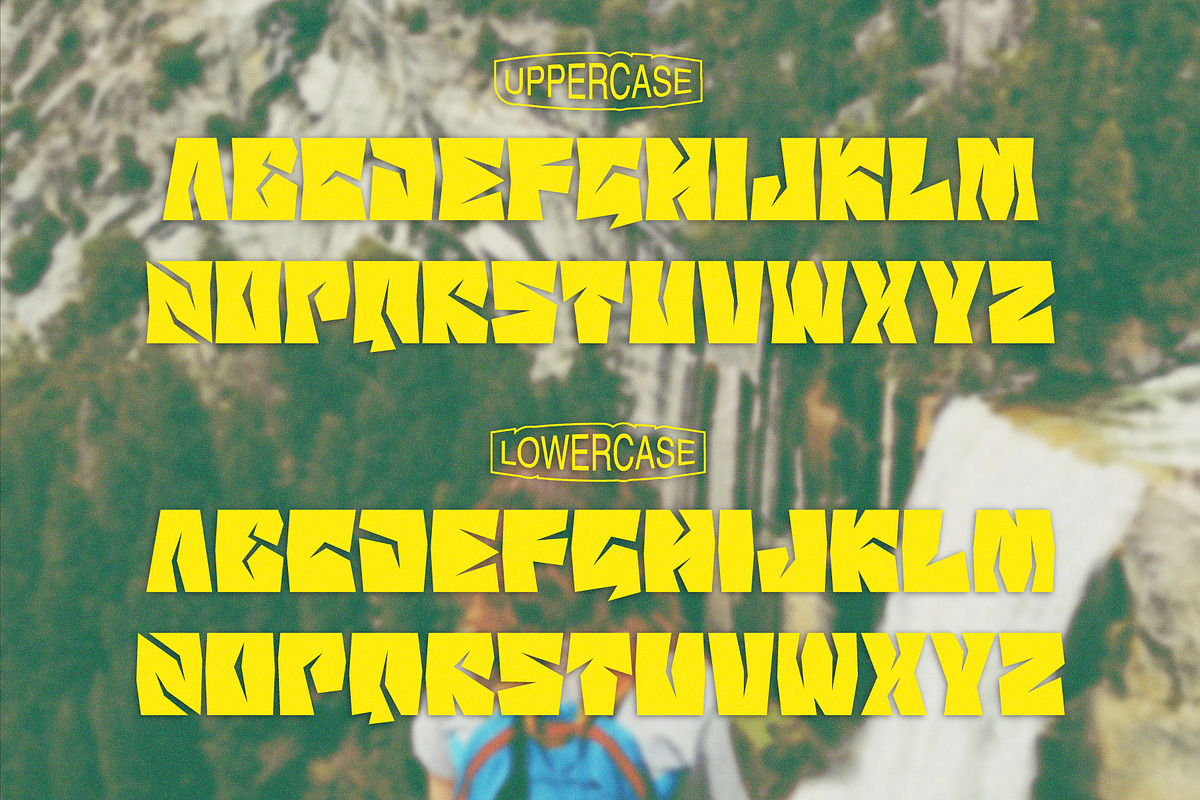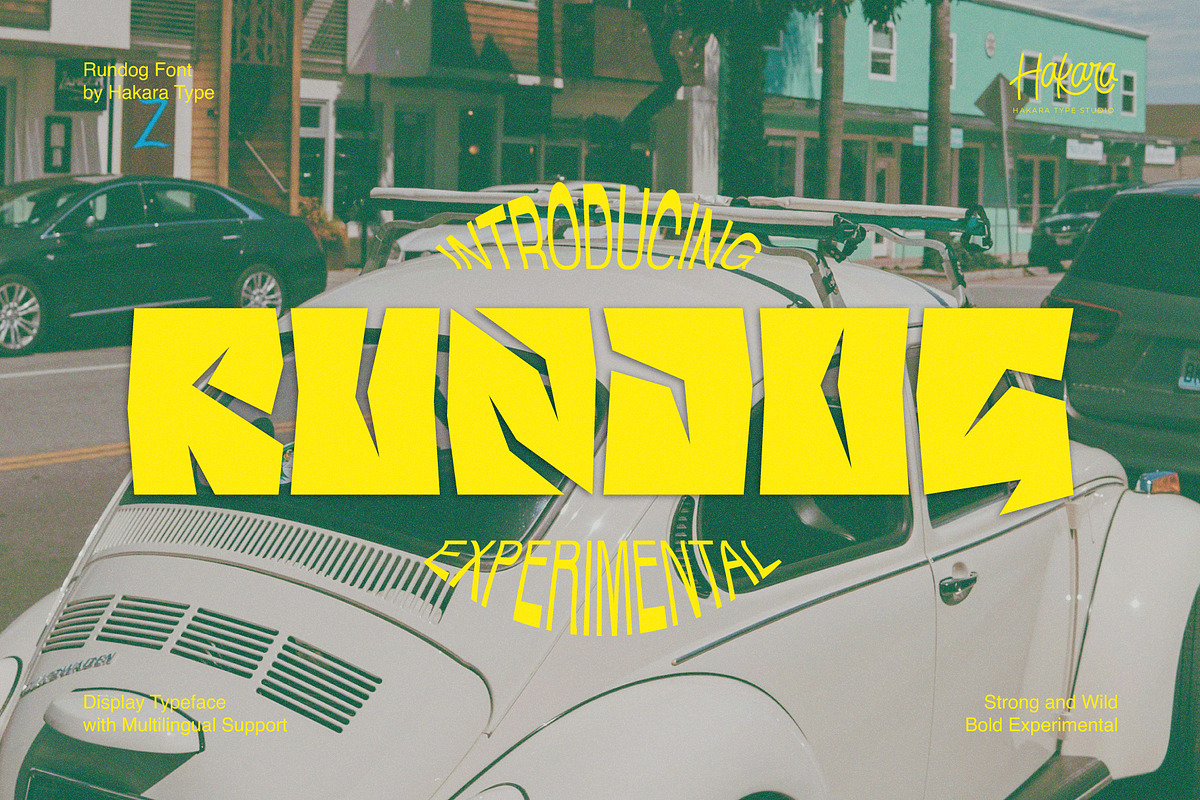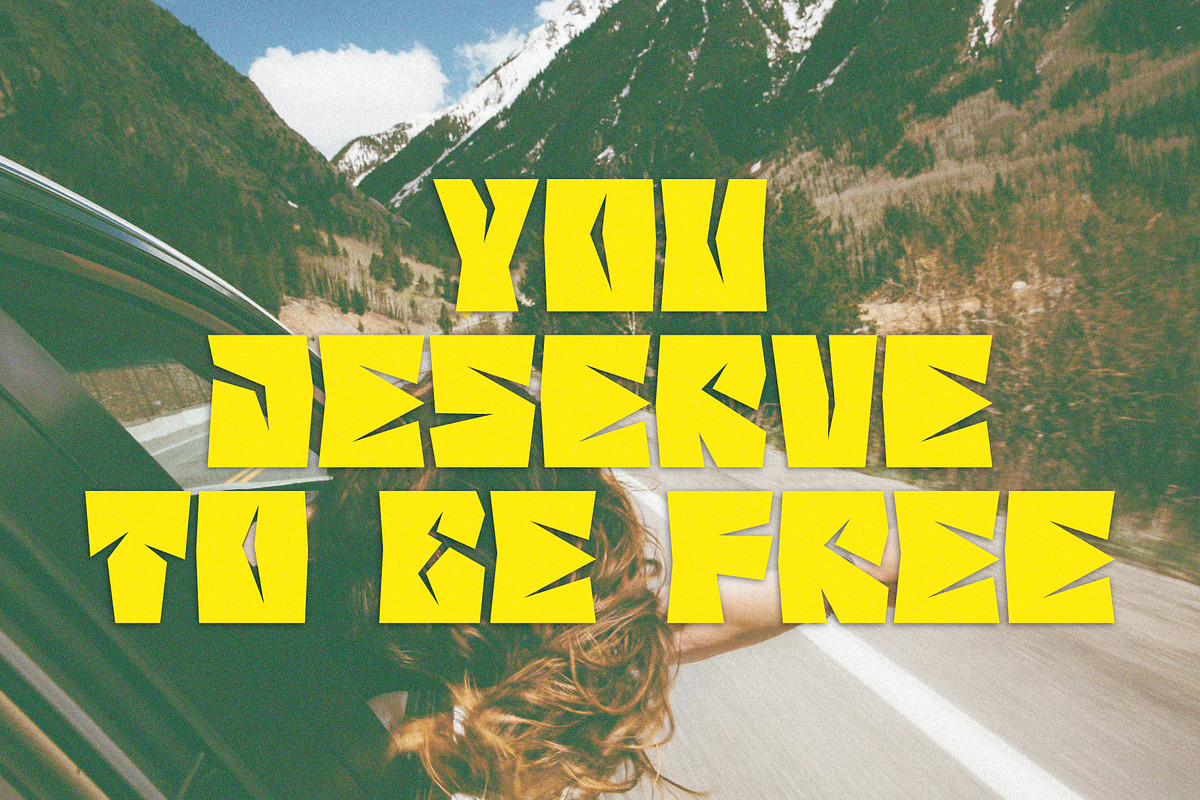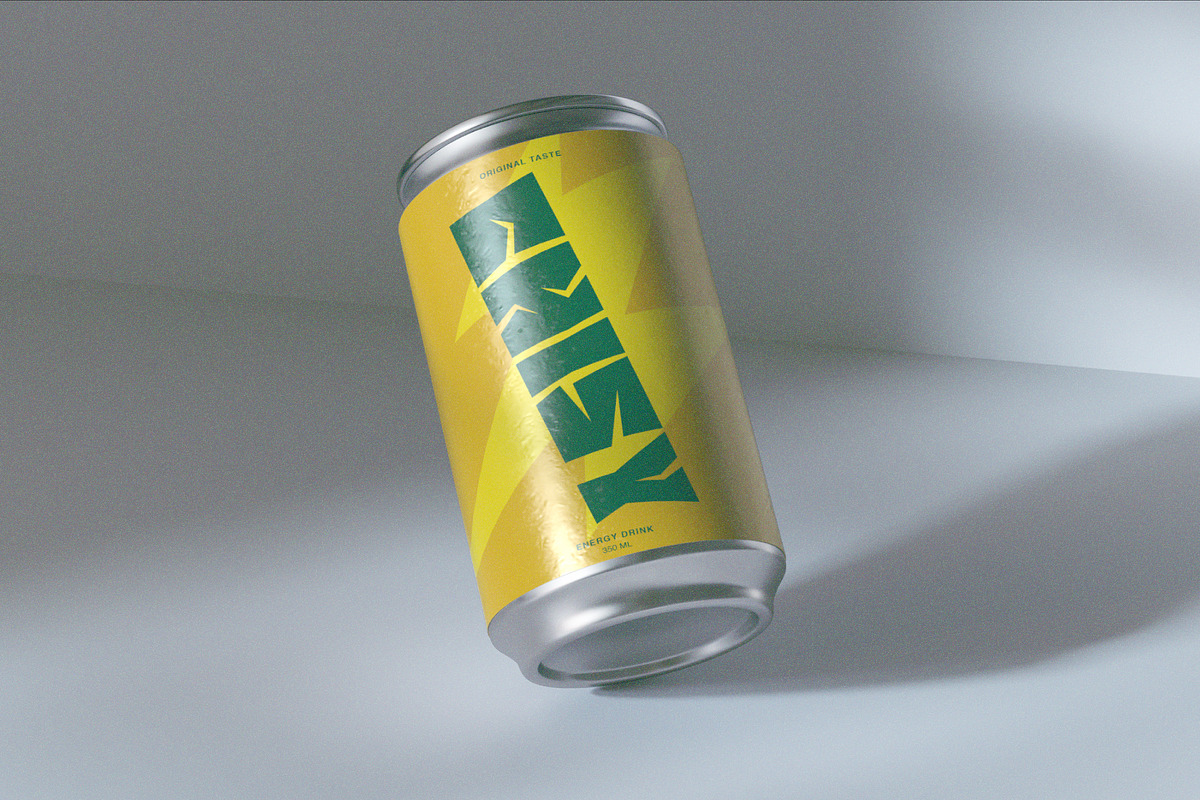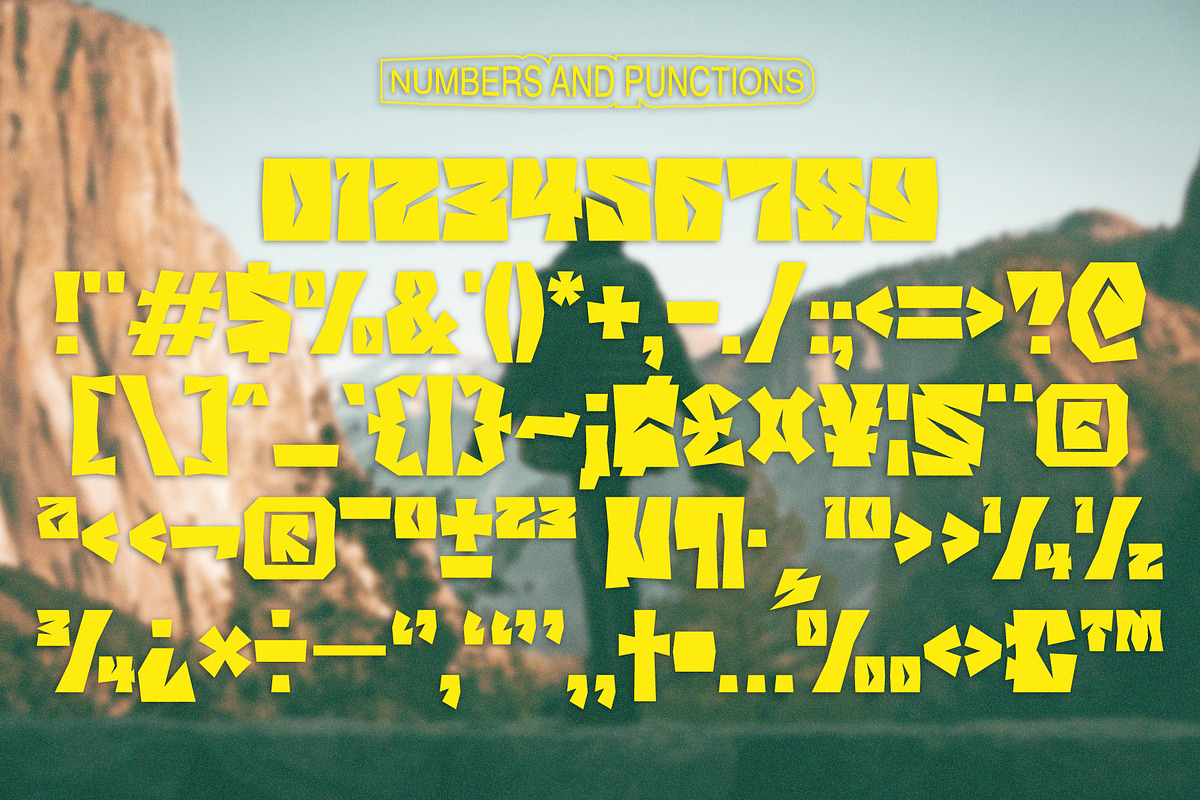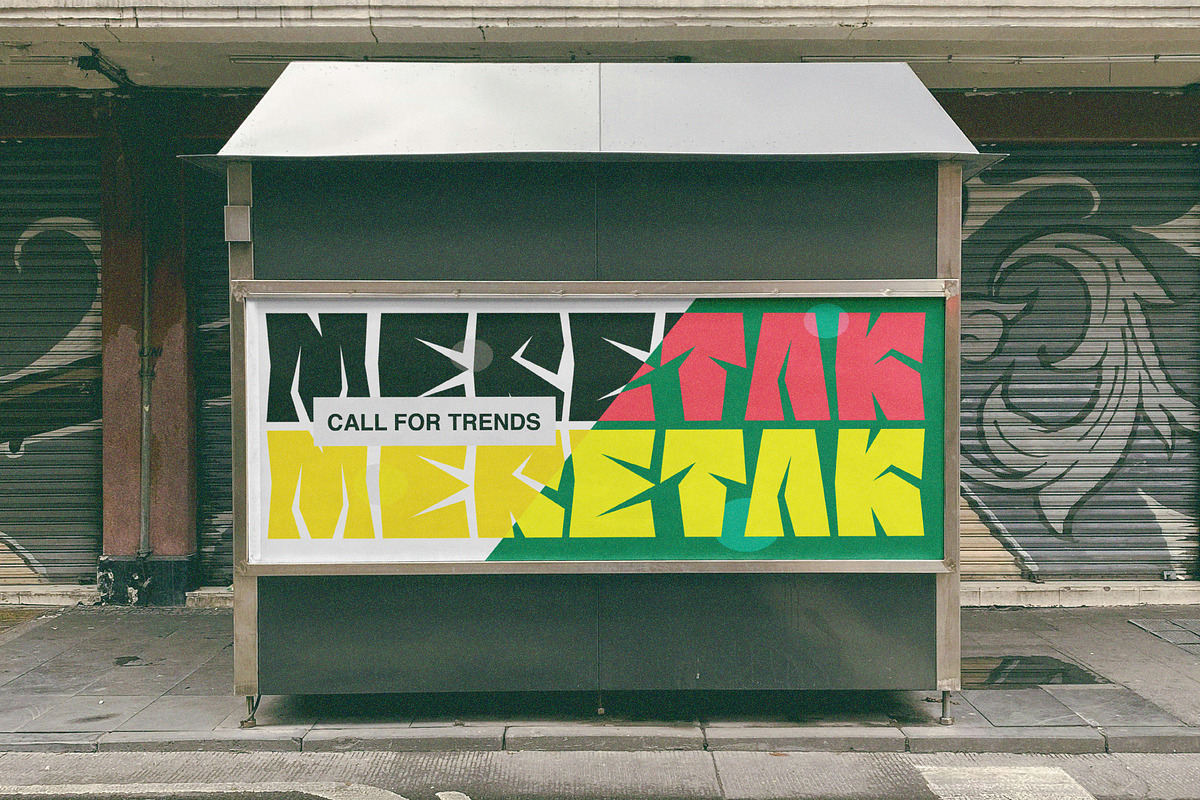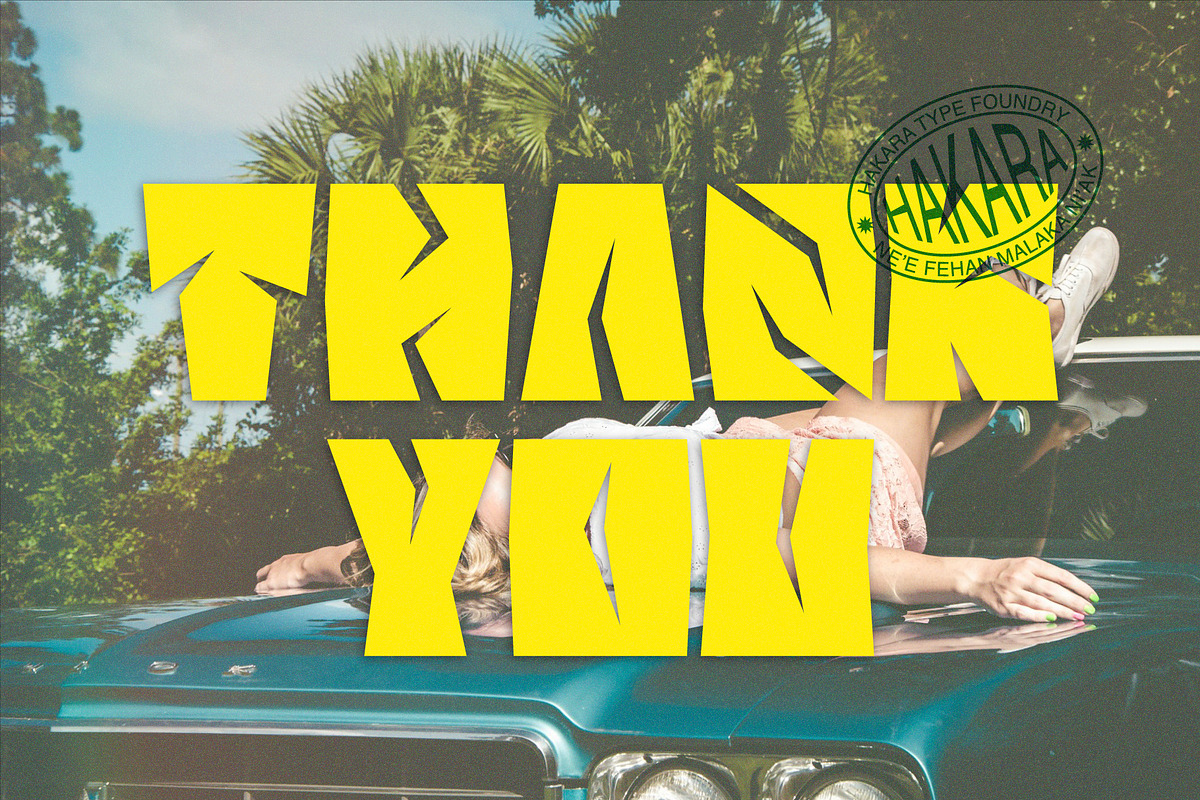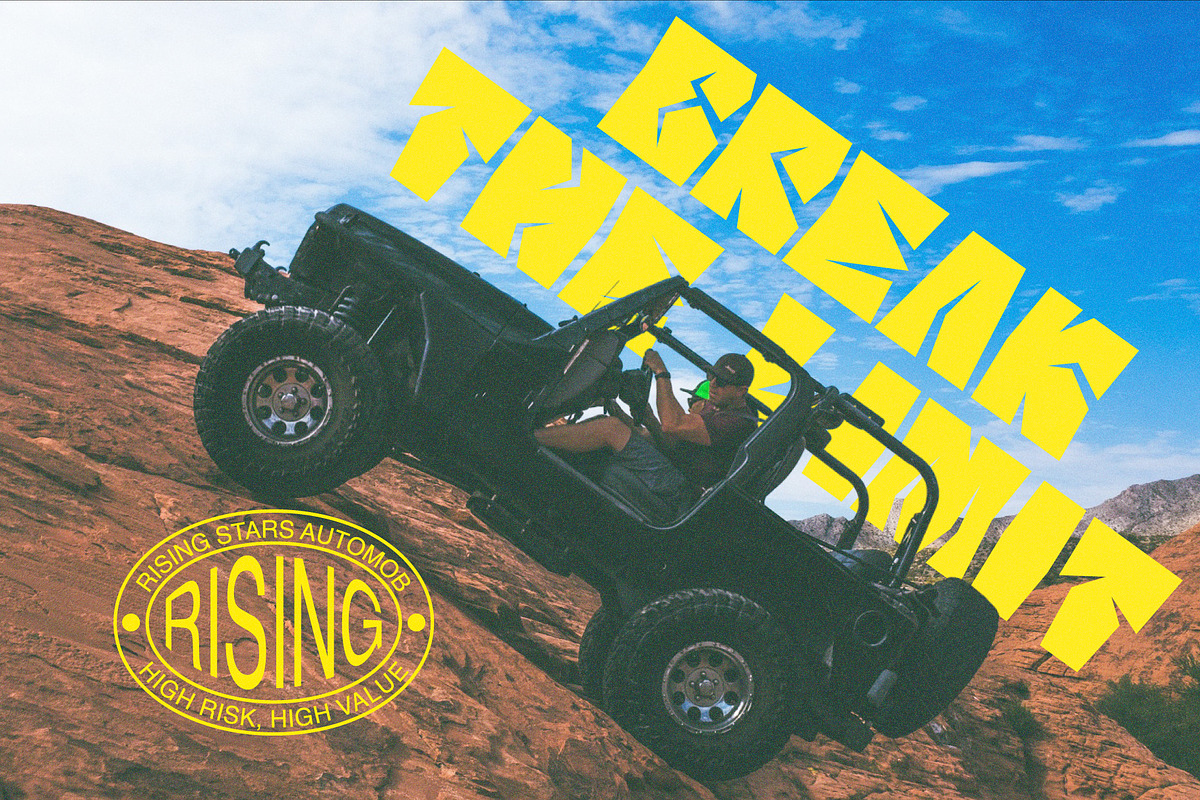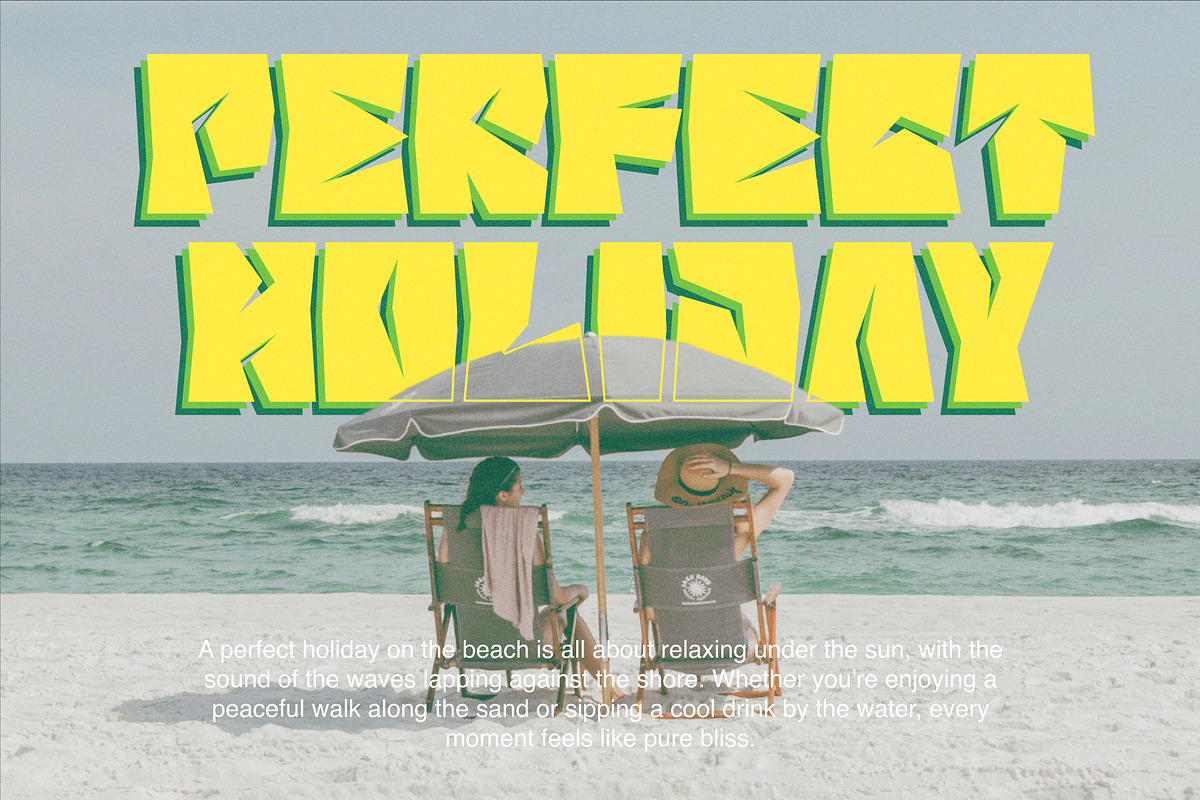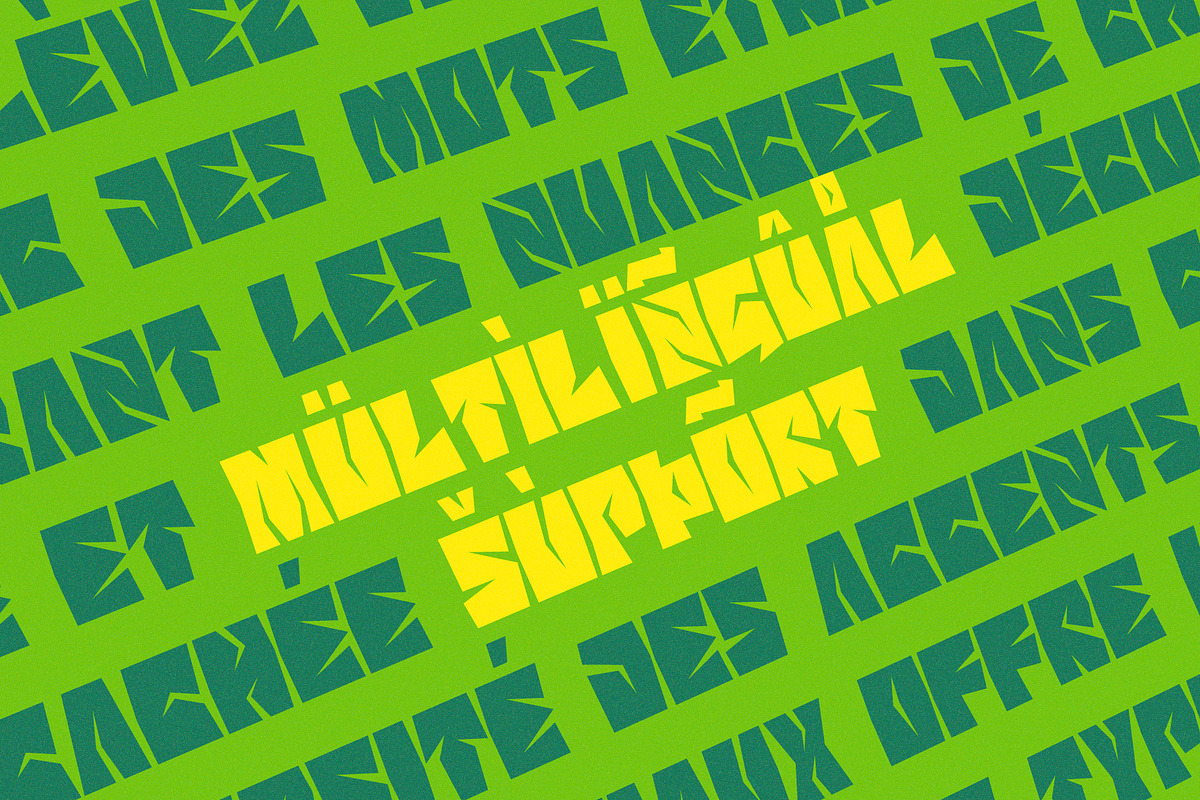
Rundog - Experimental Display
Rundog is a bold experimental display font crafted with a fearless edge. Featuring unique sharp and pointed cuts, this geometric typeface exudes both powerful and untamed visual appeal. Its bold structure commands attention, making it perfect for projects that require a striking presence. With its challenging yet balanced design, Rundog is ideal for branding, poster, headlines, or artwork that aims to make a bold, unforgettable statement. Rundog comes with uppercase, lowercase, numbers, function, and included multilingual support.